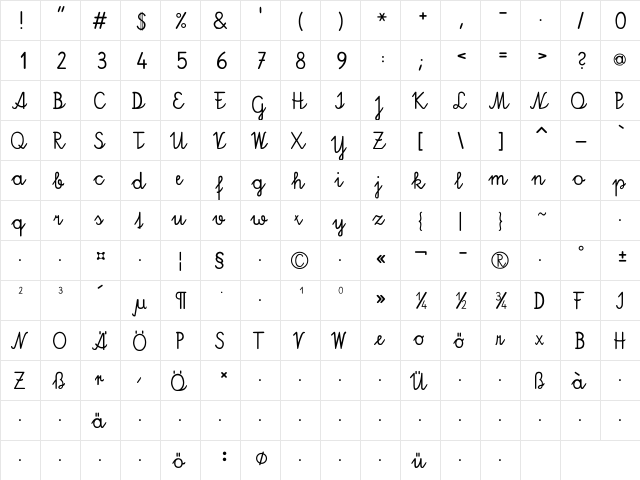
Schuschri 95-0 Regular Font Preview
Schuschri 95-0 Regular
Schuschri 95-0 Regular Font Details
Design Context for Schuschri 95-0 Typeface
Schuschri 95-0 takes a measured approach to typography — its balanced proportions and neutral character make it a reliable workhorse for both digital and print work.